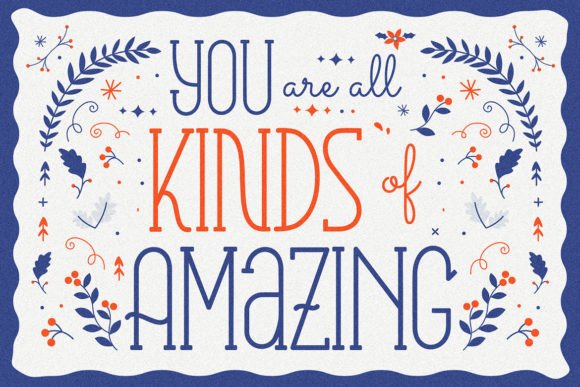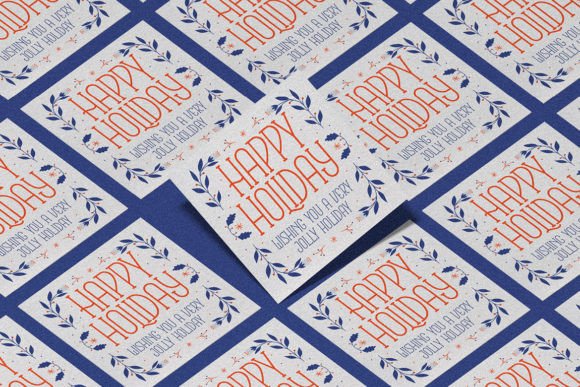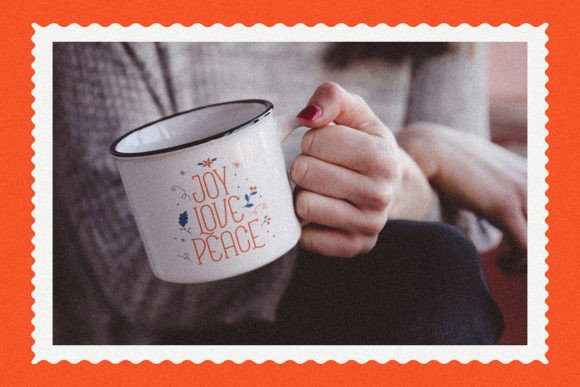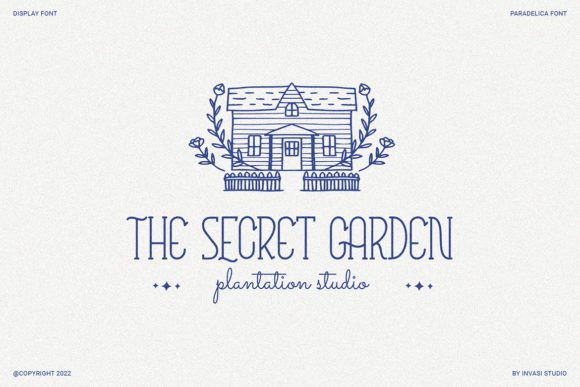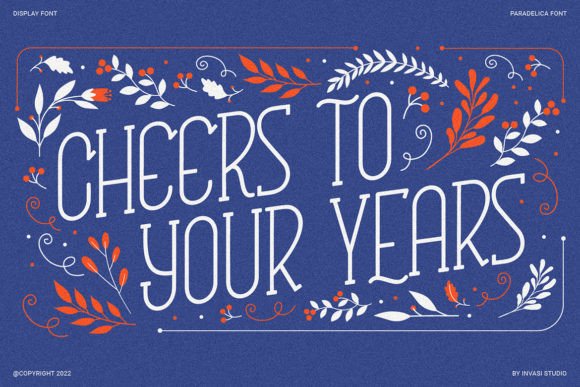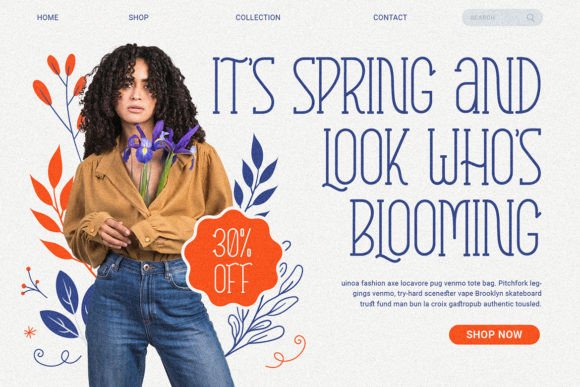
Introduction to Paradelica Font
As the holiday season approaches, designers are on the lookout for the perfect font to add some magic to their creative projects. It’s that moment when you’re brainstorming ideas for a festive logo or a special greeting card, and you wish you had the perfect design resource at your fingertips. Enter the Paradelica Font, a stylish and elegant serif font that’s sure to make your designs shine.
With its vintage vibe and playful design, the Paradelica Font is a valuable addition to any designer’s toolkit. Available in Caps only, this font is perfect for creating display pieces that require a touch of sophistication. And the best part? It’s PUA encoded, making it easy to access all the glyphs and swashes you need to bring your design to life.
Key Features of Paradelica Font
- High-quality, unique font design ideal for creative projects and design resources.
- Features a transparent background, making it easy to use in both light and dark backgrounds.
- Perfect for designers and artists looking for a distinctive and eye-catching font for their next project.
Honest Review: Paradelica Font
As a designer, I’m always on the lookout for high-quality design resources to elevate my creative projects. The Paradelica Font caught my eye, and I was excited to give it a try. Here’s my honest review.
- Unique and playful design aesthetic that adds a touch of whimsy to any project
- High-quality design that looks great in both print and digital formats
- Comes with a transparent background, making it easy to customize and integrate into any design
- May not be suitable for corporate or formal design projects due to its playful nature
- Limited character set, which may not be ideal for extended text-based projects
Overall, I’m impressed with the Paradelica Font’s design and versatility. While it may not be suitable for every project, it’s a great addition to any designer’s toolkit. With its high-quality design and free download, it’s definitely worth checking out.
Tips for Getting the Most Out of the Paradelica Font
Use the Paradelica Font with a transparent background to create a clean and modern design. Experiment with different font sizes and styles to add visual interest to your project. Consider pairing the Paradelica Font with other design elements, such as graphics and images, to create a cohesive and engaging design.
The Paradelica Font is a versatile design resource that can be used in a variety of creative projects, including logos, business cards, brochures, and social media graphics. Its high-quality design makes it perfect for both personal and professional projects.